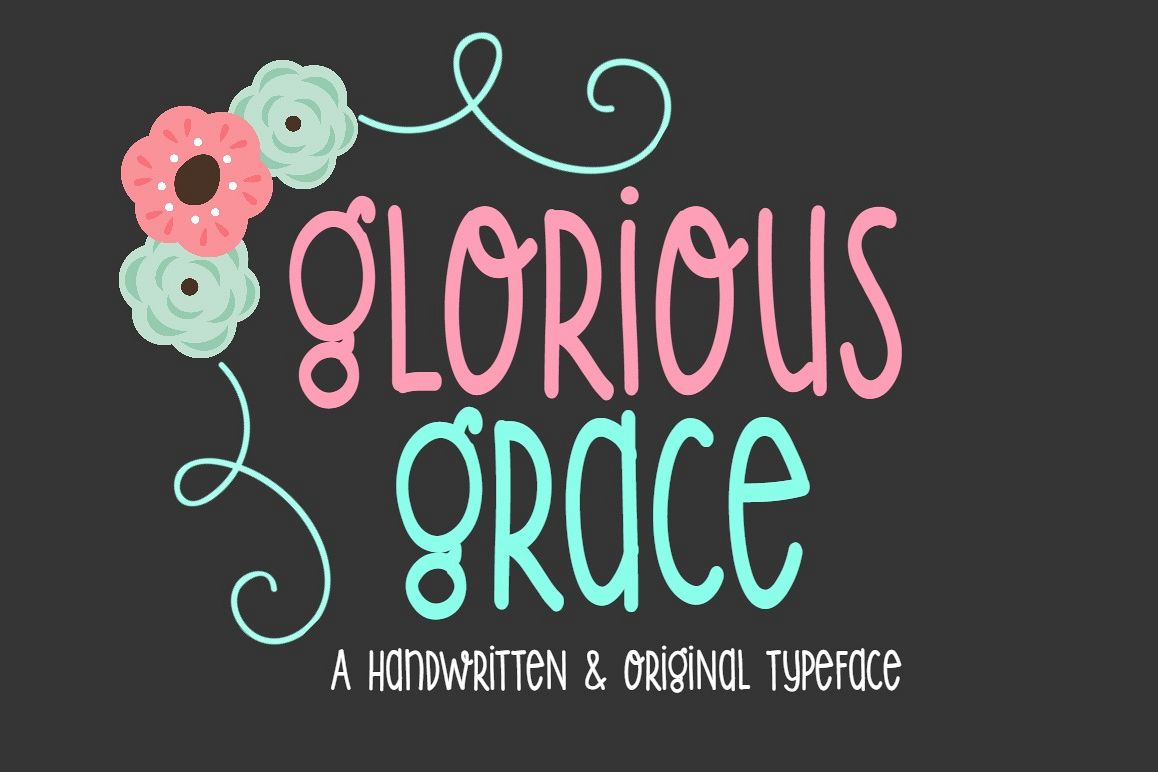
Glorious Grace-Handwritten Font
SS glorious grace
"Glorious Grace" is a brand new handwritten font! It has a sweet youthful vibe- making it a great design choice for children's apparel or decor, or anything that calls for a youthful and quirky font!